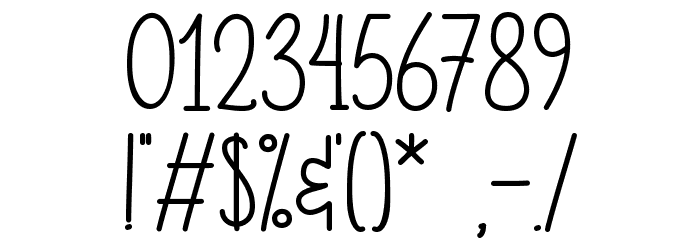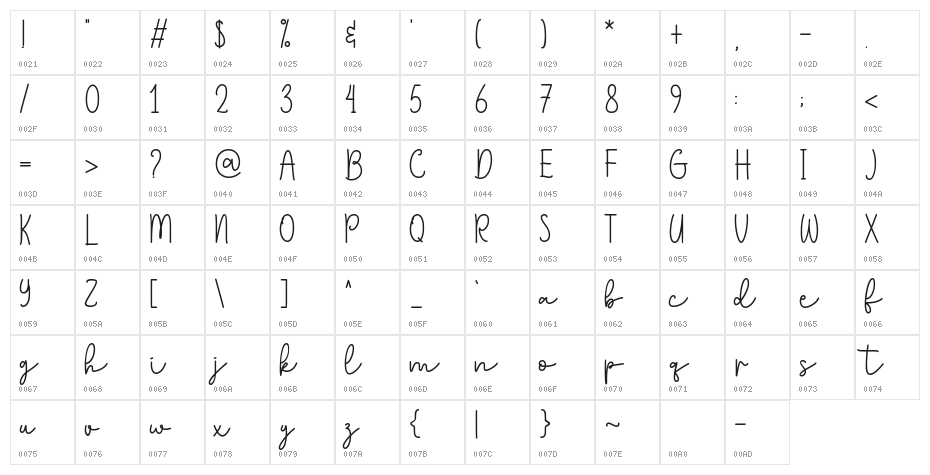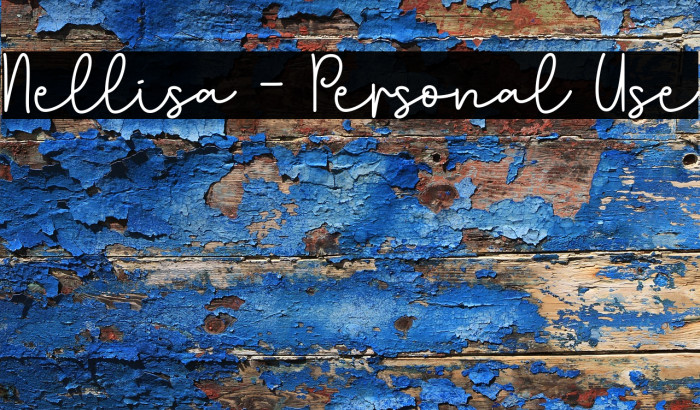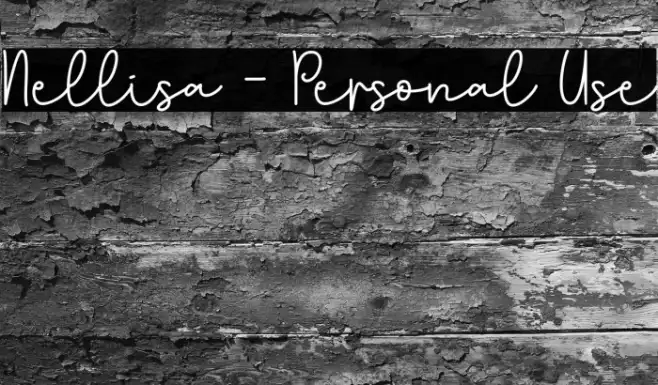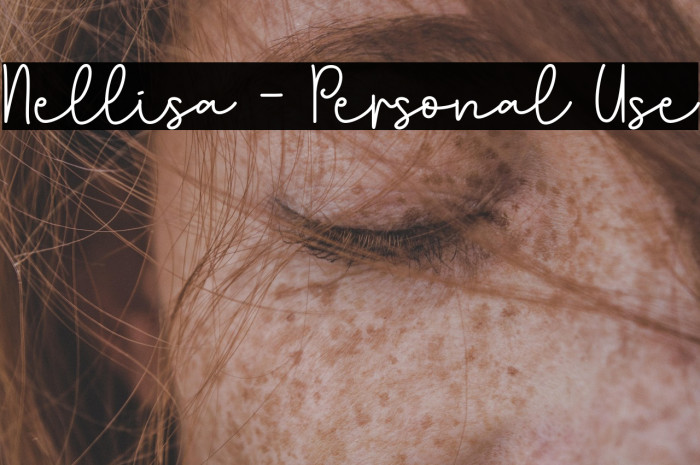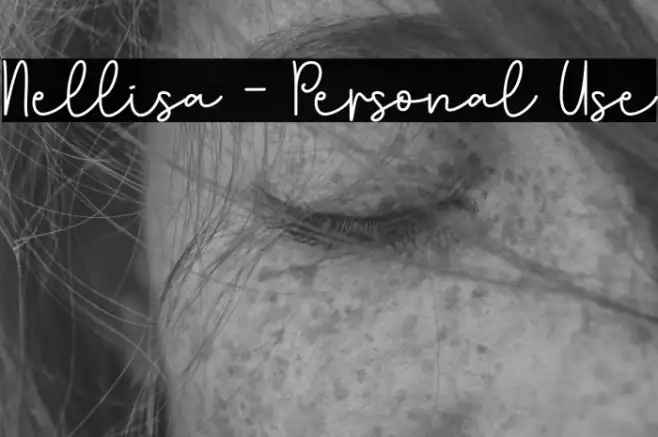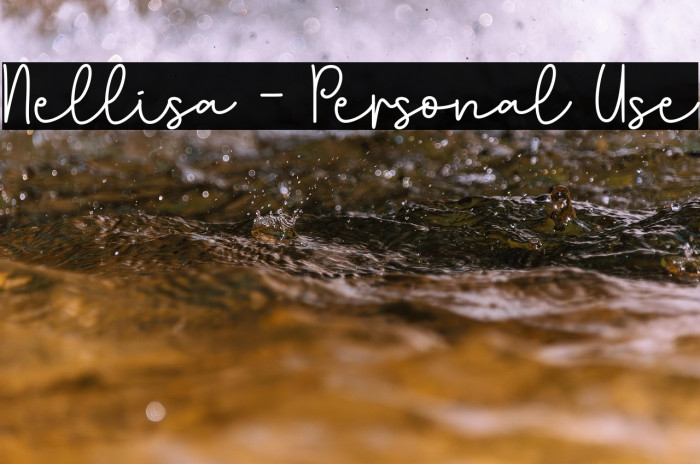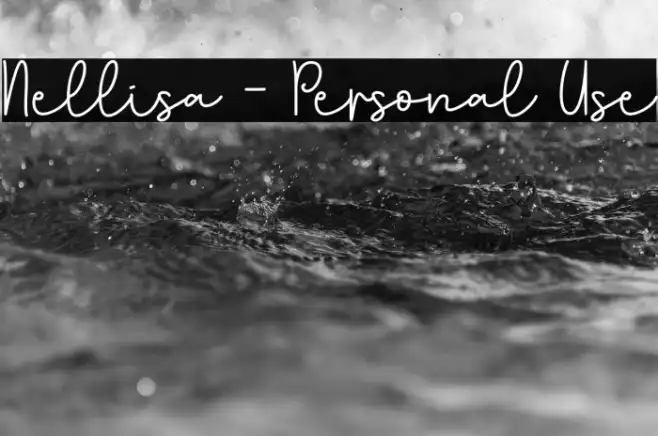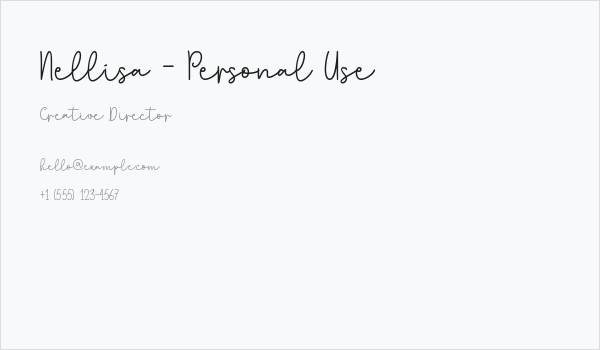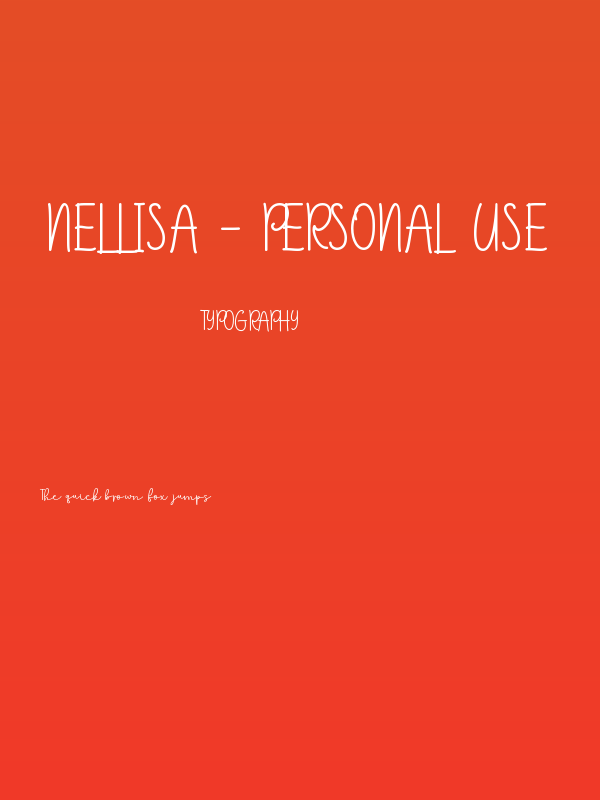
Nellisa - Personal Use Font
Nellisa - Personal Use Description
This font features a playful and whimsical style with a handwritten appearance. The uppercase letters are tall and slightly narrow, with a consistent stroke width that gives them a clean and modern look. The lowercase letters are more fluid and connected, resembling cursive handwriting, which adds a personal touch. The numbers and special characters maintain the same playful aesthetic, making them suitable for creative projects. The overall design is casual yet stylish, perfect for adding a friendly and approachable feel to any text.
| Proposed Projects | Ideal for greeting cards, invitations, personal branding, social media graphics, and children's book covers. |